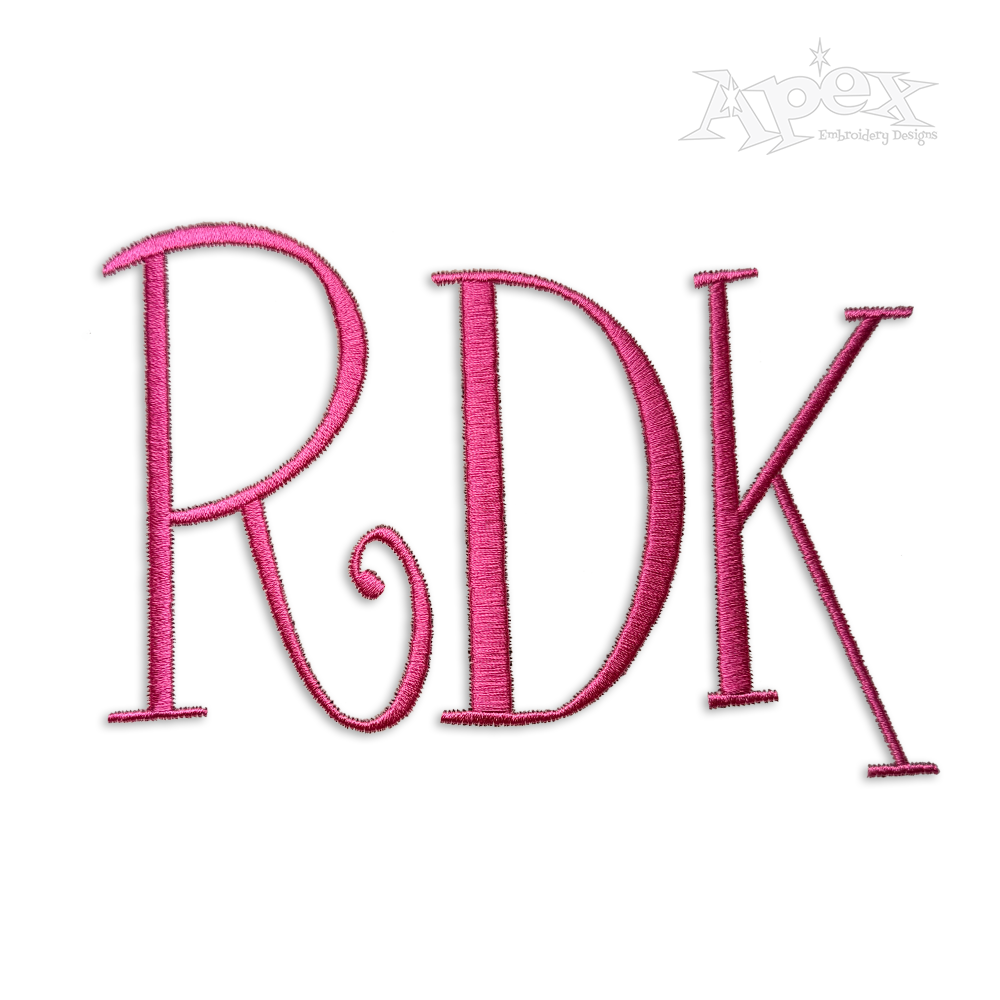
Funky Embroidery Font Alphabet
There is an undeniable magic in letting needle and thread dance outside conventional boundaries, and our Funky Embroidery Font captures that exuberant, vintage-cool spirit in every single stitch. Conceived for makers who love personality, rhythm, and artistic warmth, this alphabet blends groovy retro typography with impeccable modern digitizing craftsmanship. As your machine moves across the hoop, the undulating curves and confident swells catch light with radiant satin luster, turning everyday textiles into bespoke heirlooms bursting with joyful nostalgia.
Digitized with precision to maintain flawless stitch density and fluid letter connections across varied scales, this alphabet set includes carefully balanced uppercase and lowercase characters:
- Uppercase Letters: 3 inches (proportioned dynamically to highlight distinctive character traits)
- Lowercase Letters: 1.5 inches (paired naturally to complement the uppercase baseline)
- Letter Sizing: Proportional scale with organic variations typical of eclectic display lettering
Project Ideas for Funky Embroidery Font Alphabet
The expressive, energetic contours of this alphabet lend themselves brilliantly to statement-making projects across a variety of fabrics and lifestyle accents:
- Custom Denim & Casual Wear: Embroider spirited monograms or groovy nicknames across the back yoke of a vintage denim jacket or the chest pocket of an oversized corduroy overshirt.
- Bespoke Resort & Loungewear: Transform plush terry cloth pool towels, linen cover-ups, and colorful waffle robes into vibrant resort-inspired keepsakes.
- Personalized Canvas Totes: Stitch bold, high-contrast initials onto heavy canvas boat totes or market bags for an instant pop of retro chic.
- Playful Children’s Heirlooms: Personalize school backpacks, knit cardigans, and nursery blankets with warm, friendly lettering that feels custom-illustrated.
- Eclectic Home Linens: Add cheerful flair to cocktail napkins, bar towels, or playful brunch table runners.
Because the Funky Embroidery Font boasts substantial visual presence, intentional placement ensures your finished piece looks polished and intentional:
- Center Chest & Back Panels: Position larger three-inch initials centrally on sweatshirts, hoodies, or jackets where the organic curves have room to breathe and command attention.
- Pocket Accents: Stitch single initials or stacked two-letter monograms directly above or centered on patch pockets for an effortless tailored look.
- Angled Hemlines & Corners: Tilt short words or monograms at a subtle 45-degree angle across the corner of throw pillows or table linens to embrace the font’s inherent movement.
- Cap & Brim Placements: Utilize single-letter monograms centered on unstructured dad hats or canvas bucket hats for effortless street-style appeal.
Funky Embroidery Font Alphabet Craft & Letterform Details
Behind the effortless charm of these letters lies careful digitizing theory tailored specifically for stitch performance. The letterforms feature generous, teardrop-like terminals, jaunty waistlines, and gently flared strokes that honor mid-century pop lettering. Each stroke is engineered with dynamic satin stitch angling, ensuring thread lays flat without bunching around tight interior corners. We meticulously calibrated the pull compensation and specialized underlay framework to accommodate the varied widths of the swooping stems, preventing tunneling on soft knits while maintaining crisp edge definition on woven textiles. The result is a buttery-smooth embroidery experience that yields rich, dimensional texture every time your machine runs.